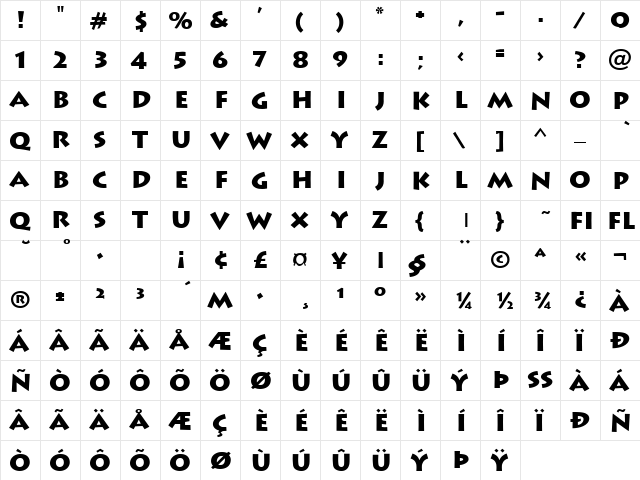
ft89 Bold
Design Context for ft89 Typeface
ft89 takes a measured approach to typography — its balanced proportions and neutral character make it a reliable workhorse for both digital and print work. Its bold stroke weight gives it real presence on the page.